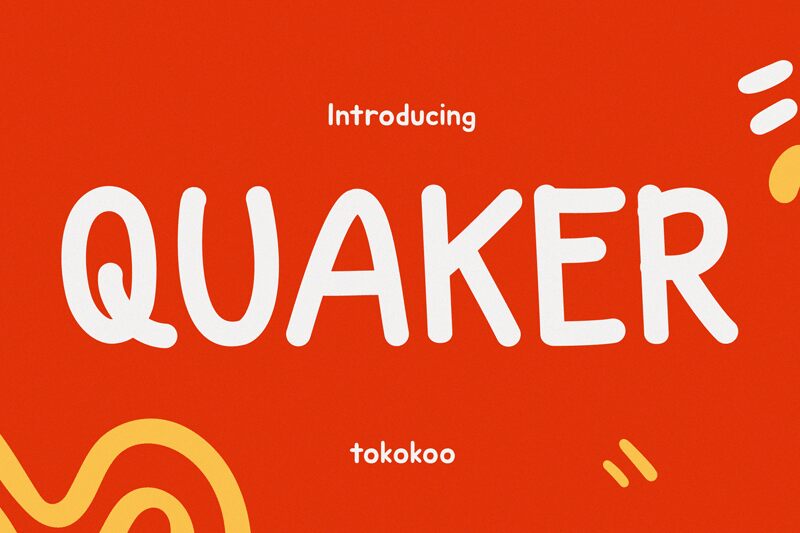
Quaker font by Tokokoo Studio is a free handwritten font that feels like it was drawn with a fat, inky marker on smooth paper. Its rounded strokes, steady rhythm, and slightly squishy curves give it a warm, approachable character that reads clearly even at smaller sizes. There’s no fuss or faux “messiness” here-just honest, friendly handwriting that instantly softens any layout.
Using Quaker, you can bring a cozy, human touch to kids’ book covers, classroom posters, product labels, greeting cards, social media graphics, and playful brand logos. This free font shines when set a bit larger, letting its bubbly forms breathe, and pairs easily with a clean geometric sans serif for body text to keep your designs balanced and readable.